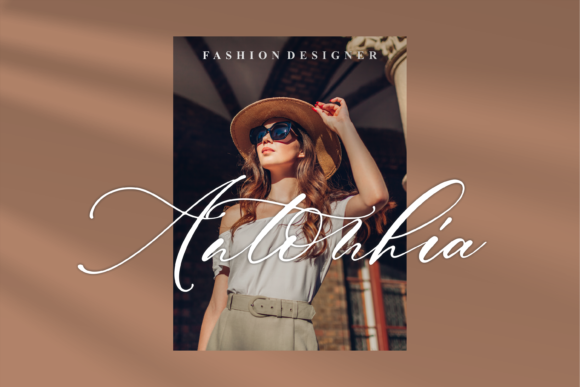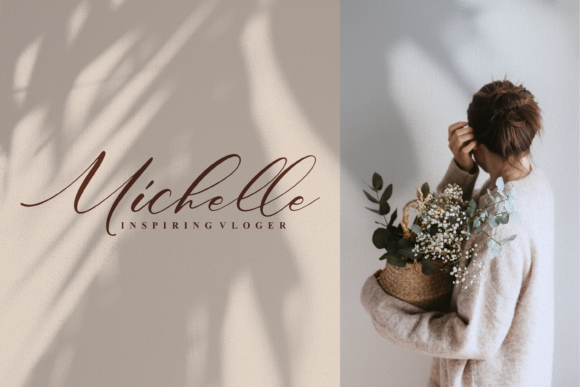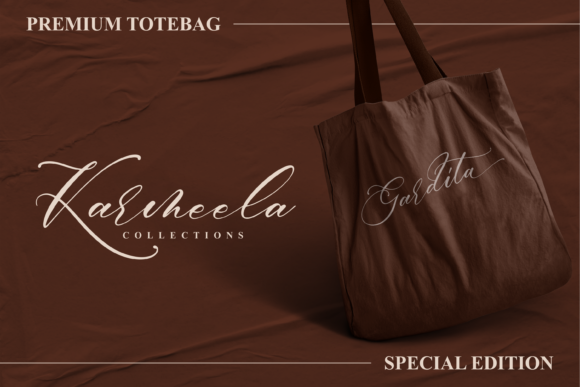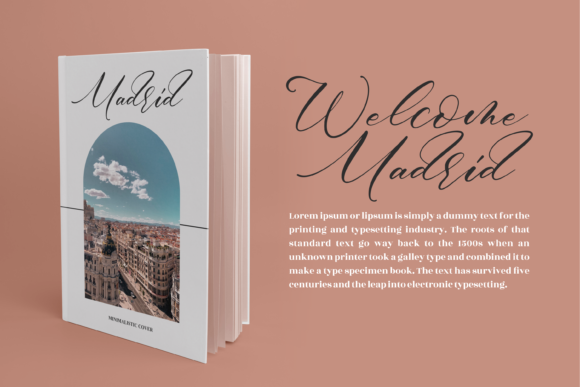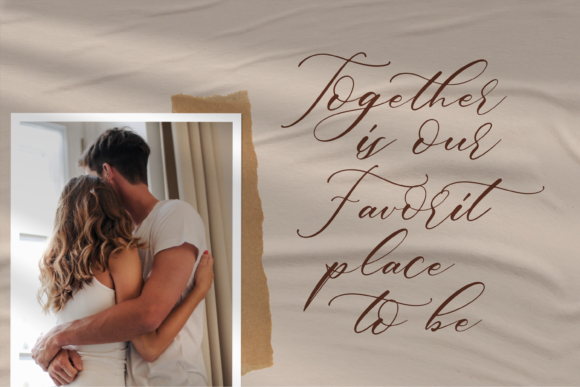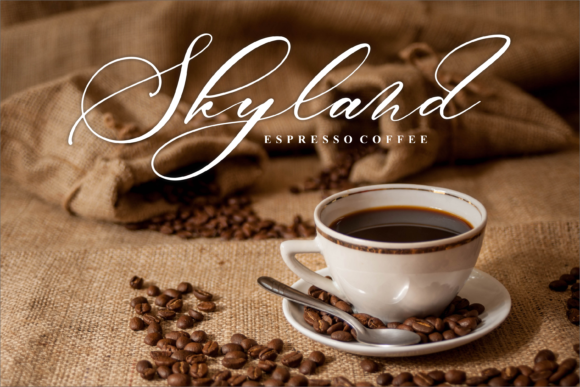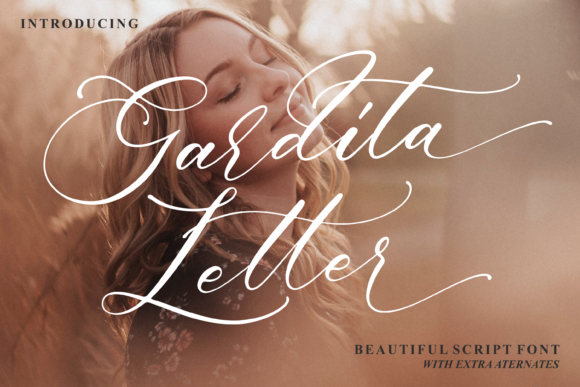
Gardita Letter Font: Elevate Your Designs with Elegance and Sophistication
Are you looking for a font that can add a touch of luxury to your design projects? Look no further than the Gardita Letter Font. This beautiful and light handwritten font is designed to make a stunning impact on any design project you wish to create. With its unique feel and elegant appearance, Gardita Letter Font is the perfect choice for designers and crafters who want to add a touch of sophistication to their work.
What Makes Gardita Letter Font Special?
Gardita Letter Font is a standout font that offers a range of features that make it perfect for a variety of design projects. Here are just a few things that make this font special:
• Unique Feel: Gardita Letter Font has a unique feel that sets it apart from other fonts. Its light and elegant appearance makes it perfect for designs that require a touch of sophistication.
• PUA Encoded: This font is PUA encoded, which means you can access all of the amazing glyphs and ligatures with ease. This makes it easy to use and customize the font to suit your design needs.
• Luxury Spark: Gardita Letter Font is designed to add a luxury spark to any design project. Whether you’re working on a branding project, a website design, or a craft project, this font is sure to make a stunning impact.
Gardita Letter Font is perfect for designers and crafters who want to add a touch of elegance and sophistication to their work. Here are just a few ways you can use this font:
• Branding Projects: Use Gardita Letter Font to create stunning brand identities that stand out from the crowd.
• Website Design: Add a touch of luxury to your website designs with this beautiful font.
• Craft Projects: Use Gardita Letter Font to create beautiful craft projects, such as handmade cards, invitations, and more.
Why Choose Gardita Letter Font?
There are many fonts available that claim to offer elegance and sophistication, but Gardita Letter Font stands out from the crowd. Here are just a few reasons why you should choose this font:
• High-Quality Design: Gardita Letter Font is designed to the highest standards, ensuring that it looks great in any design project.
• Easy to Use: This font is easy to use and customize, making it perfect for designers and crafters of all levels.
• Versatile: Gardita Letter Font is versatile and can be used in a range of design projects, from branding and website design to craft projects.
In conclusion, Gardita Letter Font is a beautiful and light handwritten font that is perfect for designers and crafters who want to add a touch of elegance and sophistication to their work. With its unique feel, PUA encoding, and luxury spark, this font is sure to make a stunning impact on any design project. Whether you’re working on a branding project, a website design, or a craft project, Gardita Letter Font is the perfect choice.
Tips and Tricks for Using Gardita Letter Font
Here are a few tips and tricks for using Gardita Letter Font:
• Pair it with Other Fonts: Gardita Letter Font looks great when paired with other fonts. Try pairing it with a bold font for a stunning contrast.
• Use it for Headings: This font is perfect for headings and titles. Use it to add a touch of luxury to your design projects.
• Experiment with Colors: Gardita Letter Font looks great in a range of colors. Experiment with different colors to find the one that works best for your design project.
Here are a few frequently asked questions about Gardita Letter Font:
• What is Gardita Letter Font? Gardita Letter Font is a beautiful and light handwritten font with a unique feel and a stunning impact.
• Is Gardita Letter Font PUA encoded? Yes, Gardita Letter Font is PUA encoded, which means you can access all of the amazing glyphs and ligatures with ease.